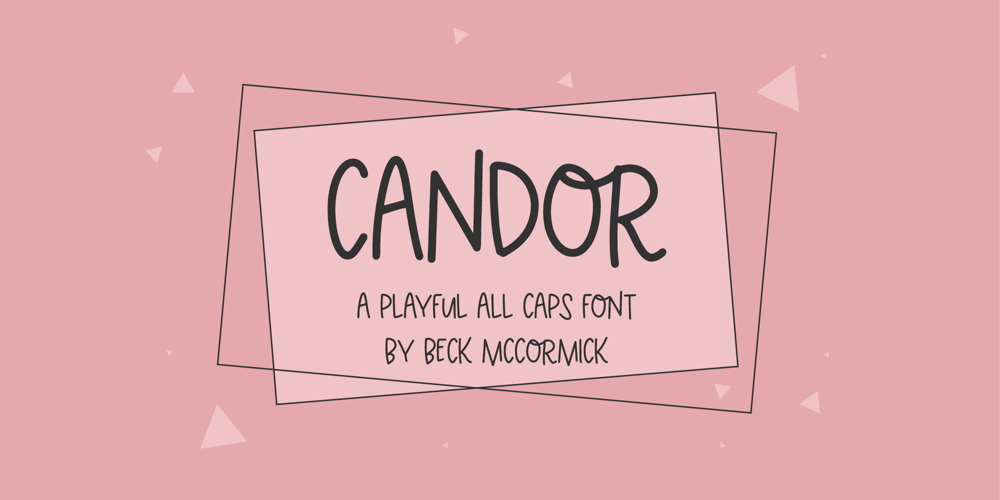
Candor Sans Font Family was designed by Beck McCormick and published by BeckMcCormick. Candor Sans contains 1 styles and family package options. Candor Sans is an all caps handwriting font with a playful aesthetic and an adorable loopy O. Candor is a perfect fit for your cute home decor projects, your Cricut machine, logo & branding projects, marketing materials, social media graphics, & more.Candor includes:- full upper + lowercase characters- numbers + punctuation- 6 ligatures – OA, OJ, OO, OQ, OT, OU- PUA-encodingExtensive Language Support:Western European, Central European, South Eastern European, South American, Oceanian, Vietnamese, EsperantoCandor Sans can be used with graphic design programs such as Illustrator or Photoshop, word processing programs like Pages or Word, Design Space, Silhouette, Procreate, Canva Pro, Glowforge, GoodNotes, & more. This font is an installable for desktop & laptop machines, as well as iPads or iPhones. See below for links to help with installation.